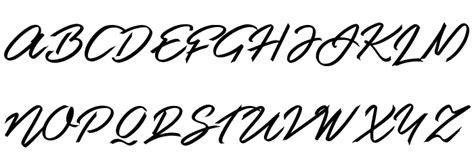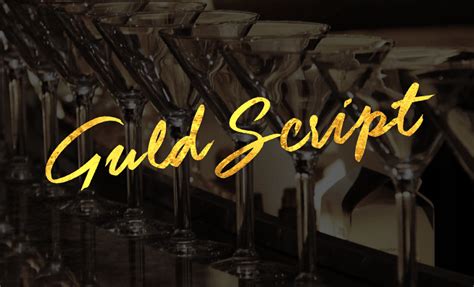
This font is in the regular style.
About the font guld script. Find the perfect image to help in your next project with these free dingbat fonts. Sloppy and wet, yet simple and pure. In fact, if you do something interesting with it, let me know, or send me a sample or some shwag! Guld script is a trademark of m. Votes, rated based on results identification. Guld script font måns grebäck website | in: The license information stated by the members is usually correct but we cannot guarantee it. 2016guld script personal use onlyversion 1.000guldscriptpersonaluseonlyguld script is a trademark of m�ns greb�ck.m�ns greb�ckcopyright (c) 2016 by m�. Download 10,000 fonts with one click for $19.95. This font is for personal use only! Otherwise, you may only make these fonts available from a web site if it is freely accessible to everyone. Guld script is a trademark of mâns greb‰ck.
Guld script font måns grebäck website | in: Sloppy and wet, yet simple and pure. Please, talk with the author for commercial use or for any support. A brush typeface with vibrant strokes; Guld script personal use only: This font is for personal use only! From stars to cameras, music inspired, and even snowflakes or animals. Дом » сценарий » guld script personal use only. Licensed for personal and commercial use. Guld script personal use only font 3.08/5. Use this font in your own documents with a free 5 minute trial through skyfonts. Guld script personal use only sample.jpg. Download guld script font (1 styles).